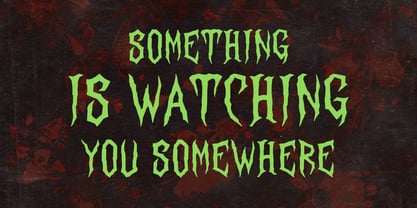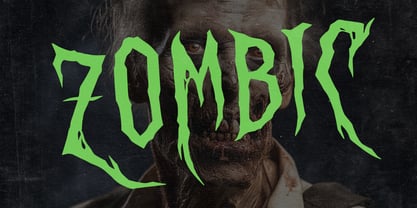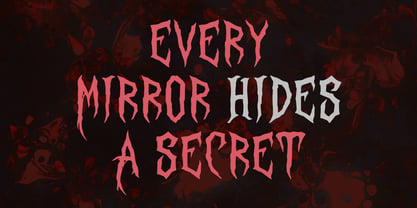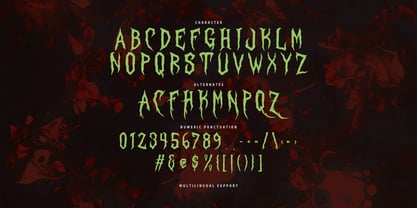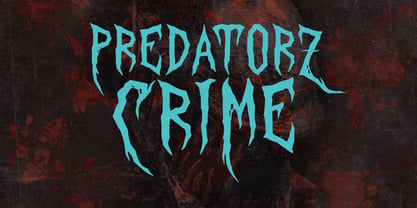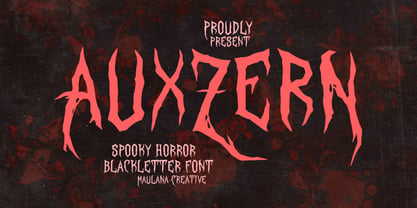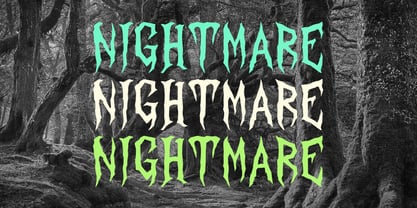
MC Auxzern
by Maulana Creative
The MC Auxzern Font Family was designed by Gilang Maulana and published by Maulana Creative. MC Auxzern contains 1 styles. More about this family
Unleash the darkness with Auxzern, a spine chilling blackletter font designed to bring your most terrifying visions to life. Featuring sharp, jagged edges and a distorted, aggressive silhouette, this font captures the raw energy of classic horror cinema and dark metal aesthetics. Whether you are designing a movie, a death metal album, or spooky Halloween branding, Auxzern provides a unique, handcrafted feel that demands attention. The set includes a full range of uppercase characters, numerals, and punctuation, along with spooky alternates to give your typography a truly chaotic and supernatural edge.
Designers: Gilang Maulana
Foundry: Maulana Creative